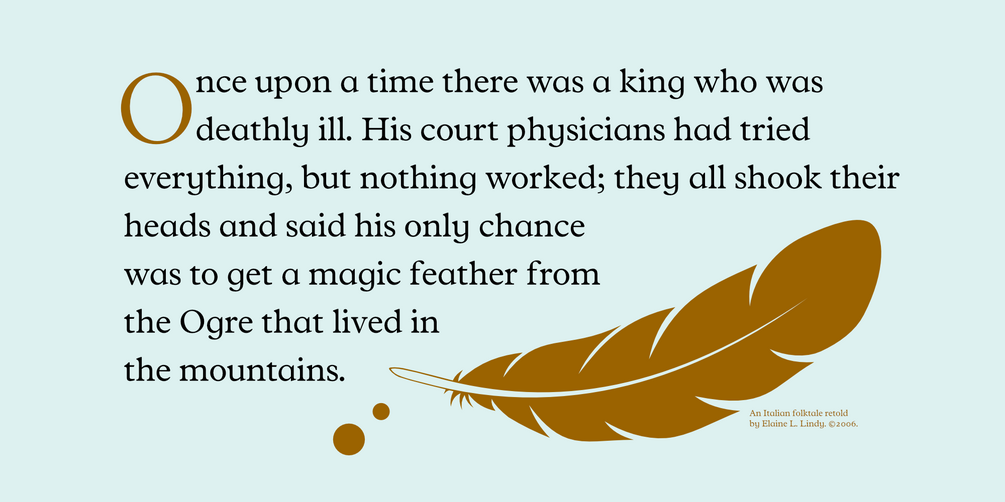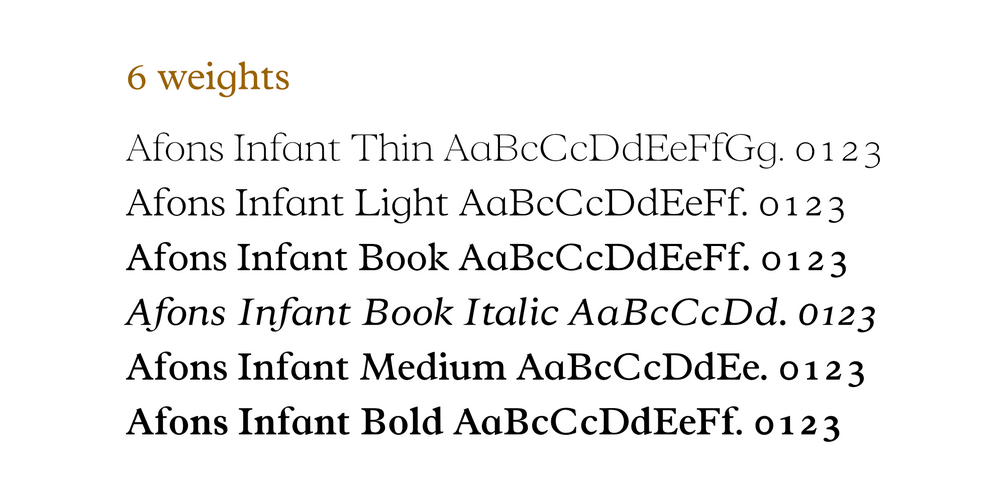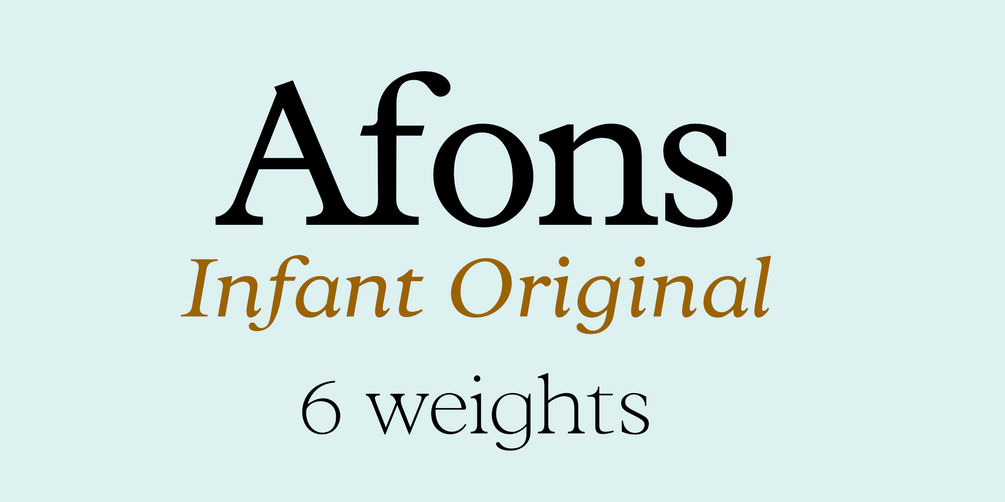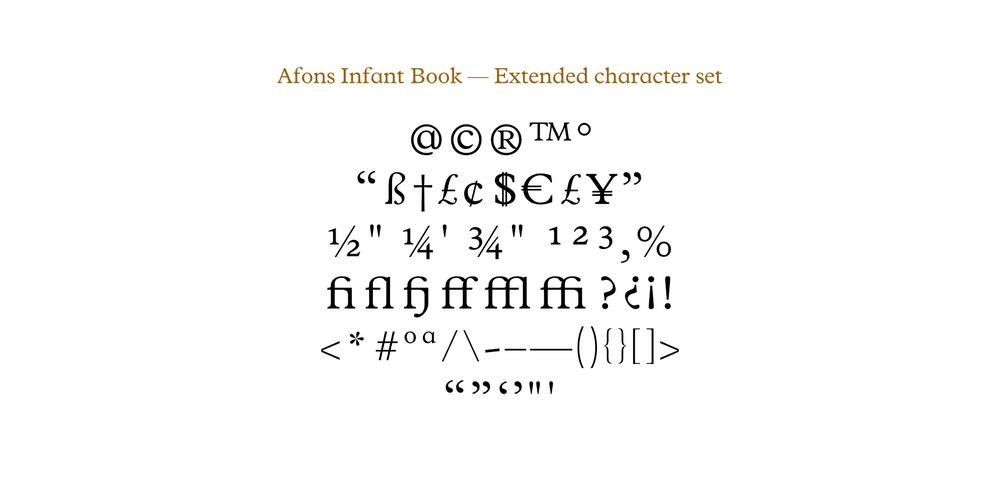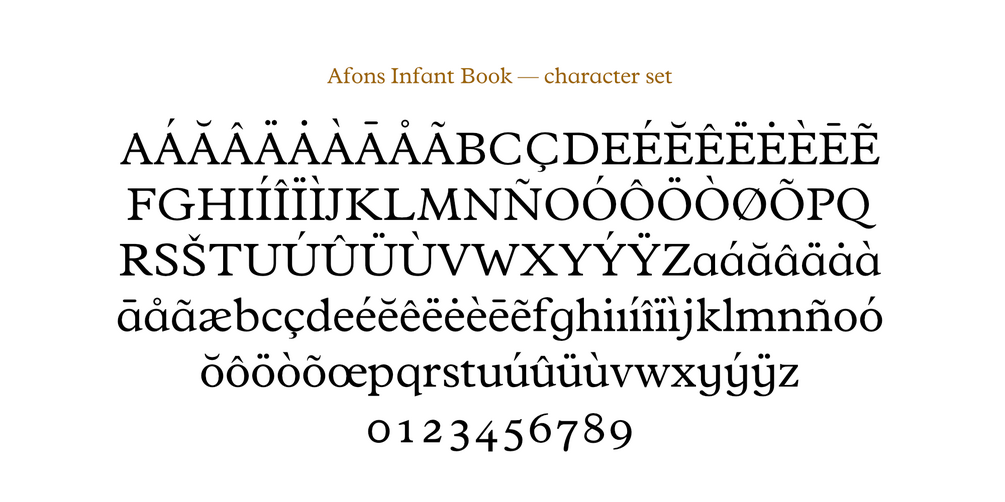
Afons Infant Original Book
An easy-to-read, rounded typeface with a large x-height, based on Plantin, making it excellent for long-form text copy. Afons Infant Original has clear, well-defined shapes, in five weights, making it perfect for early readers.
Afons Infant has been designed for children’s storybooks; using round, single-decker letter forms to create simple, clear and readable stories that children are familiar.
Multi language
Lowercase Numerals
Ligatures
Serif typeface - perfect for Early Readers